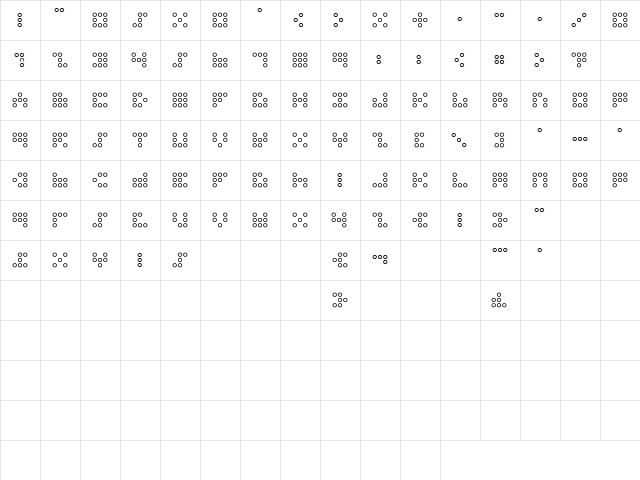
Complete 3x3 dots Outline Regular glyph index. Displaying only characters natively supported by 3x3 dots Outline Regular font.
3x3 dots Outline is rooted in pixel-grid construction, making it a natural fit for game UI, retro computing aesthetics, and digital nostalgia projects.
Pro Tip: Use 3x3 dots Outline at sizes that align with its pixel grid for the sharpest rendering - scaling to non-integer multiples can introduce unwanted blur.